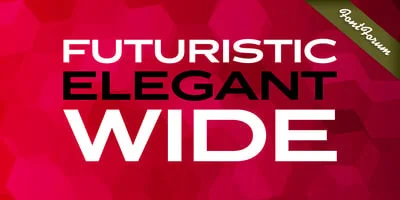
LP Horizont Caps Font
This expansive typeface is perfect for travel agencies, horizon photography, landscape architecture firms, exploration companies, aviation brands, maritime navigation services, outdoor adventure equipment, scenic tourism campaigns, wide-angle photography, panoramic viewing platforms, boundless lifestyle brands, and limitless vision campaigns. The font's broad design makes it ideal for projects that celebrate endless possibilities, vast perspectives, and the inspiring beauty of horizons that stretch beyond the visible world with infinite potential.
LP Horizont Caps Font is exciting because it embodies expansive vision and limitless perspective through its wide letterforms and horizon-inspired character structure. The font's stretched proportions and panoramic angles create an atmosphere of openness, exploration, and infinite possibility, making it perfect for brands that want to convey vastness, adventure, and the captivating appeal of boundless horizons. Its expansive personality ensures instant inspiration while maintaining excellent readability across various exploration applications.
The LP Horizont Caps Font family includes multiple expansive variations: Light Vista, Regular Horizon, Medium Panorama, Bold Landscape, and Black Infinite weights, each available in standard and extended versions. Special exploration editions feature wide alternates, horizon ornaments, and vista symbols that enhance the font's expansive appeal, providing designers with comprehensive tools for creating authentic horizon-focused communications.
Expand design possibilities with LP Horizont Caps Font – a typeface that represents limitless vision and panoramic perspective. Whether you're developing travel branding, exploration materials, or boundless vision campaigns, this font delivers the expansive presence and infinite appeal your projects need while ensuring exceptional performance and horizon-spanning impact across all exploration and travel applications.